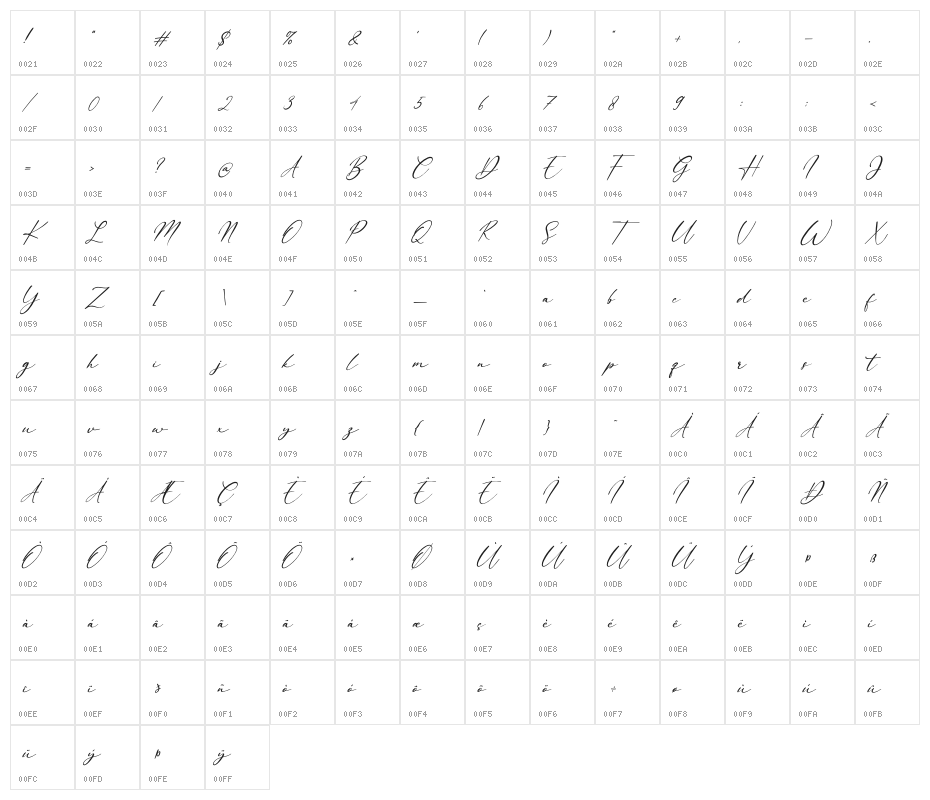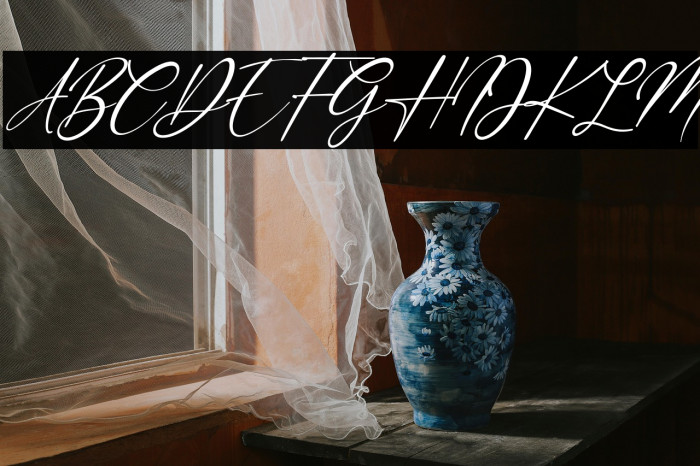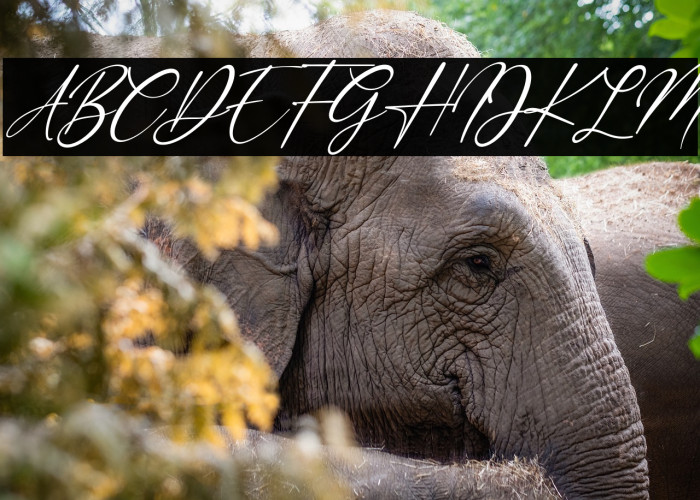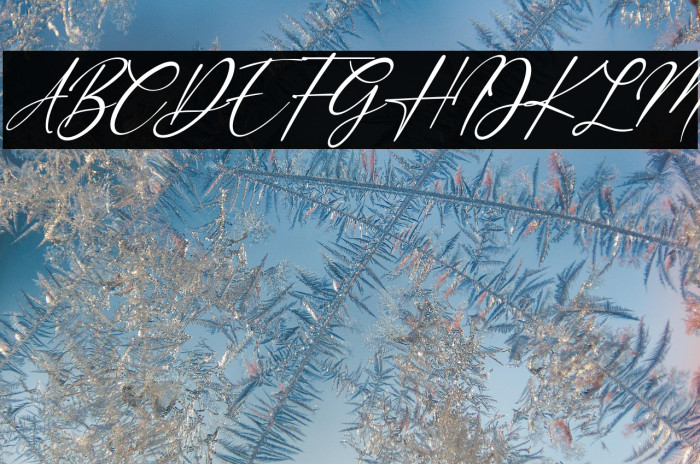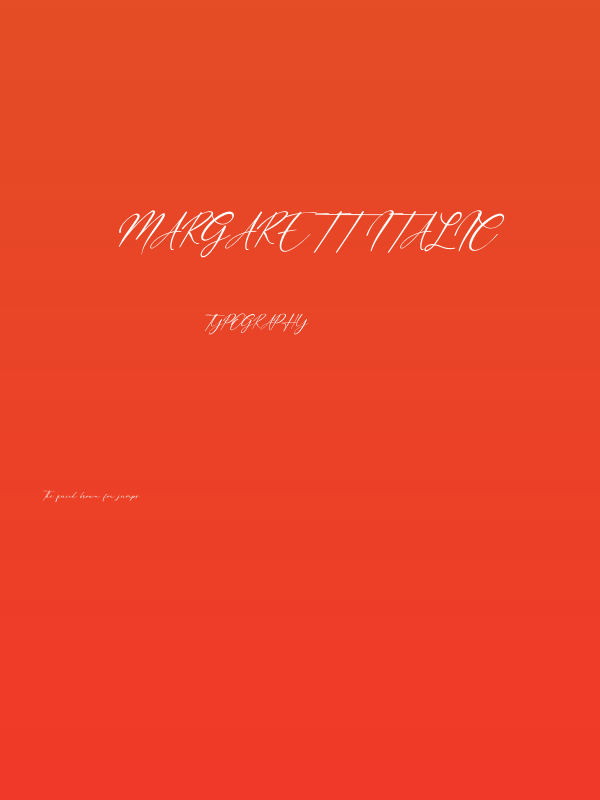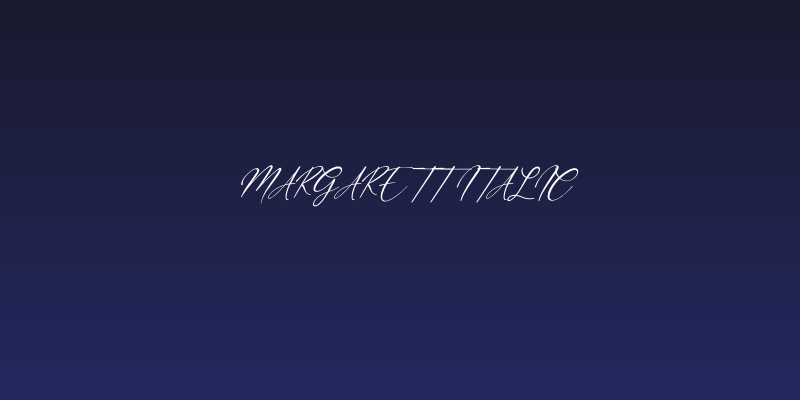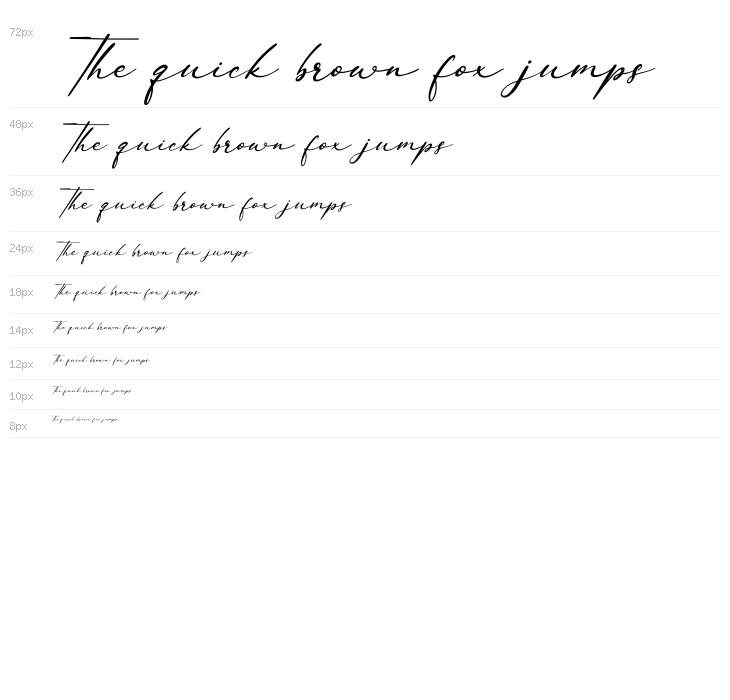
Margarett Italic Font
Margarett Italic Description
This elegant script font features a flowing, cursive style with a natural handwritten appearance. The characters are connected, creating a seamless and fluid look. The strokes are smooth and slightly varied in thickness, adding a touch of sophistication and grace. The uppercase letters are ornate and stylish, while the lowercase letters maintain a consistent and harmonious flow. The numerals and special characters are designed to complement the overall aesthetic, making this font suitable for a variety of creative applications.
Overall StyleElegant, Handwritten
Use CaseLogos, Invitations, Greeting Cards
Proposed ProjectsIdeal for wedding invitations, greeting cards, logos, and branding materials that require an elegant and personal touch.